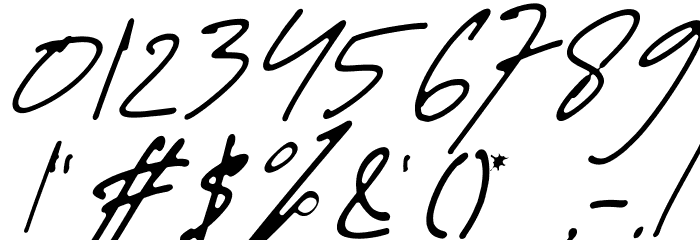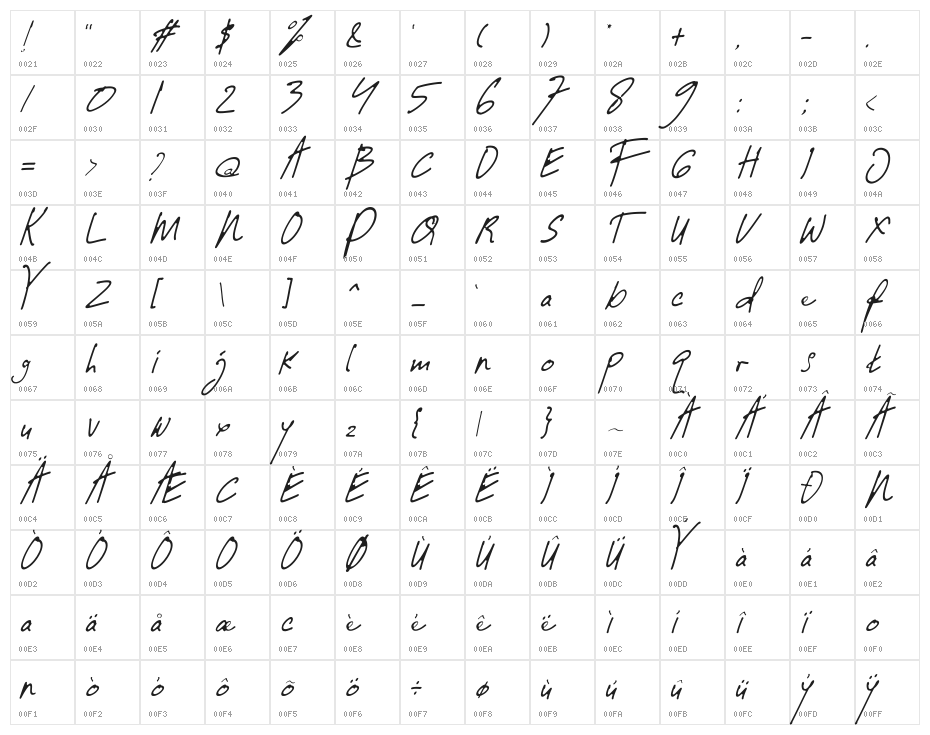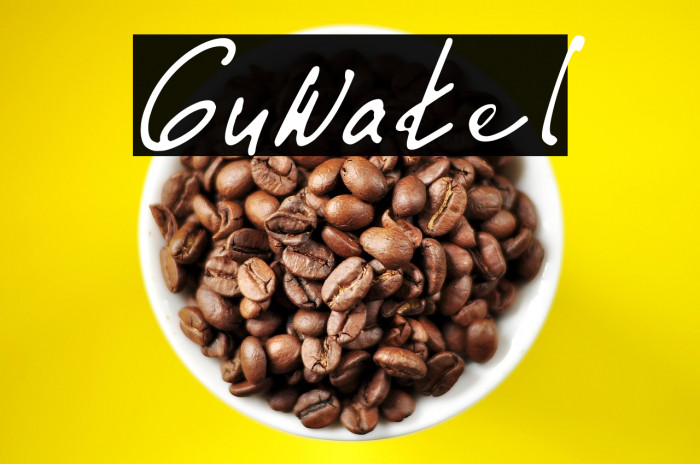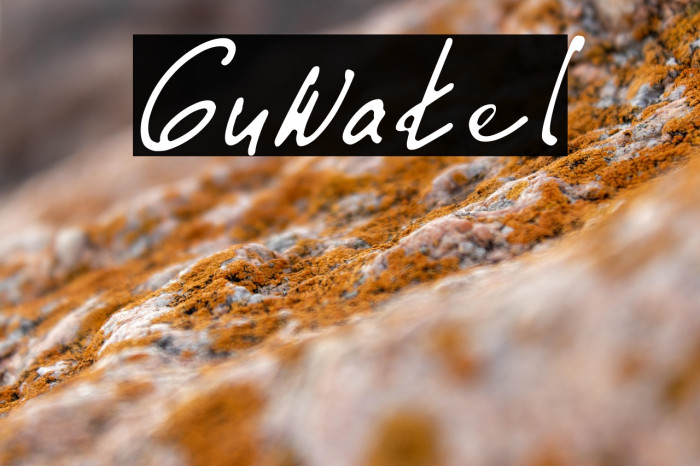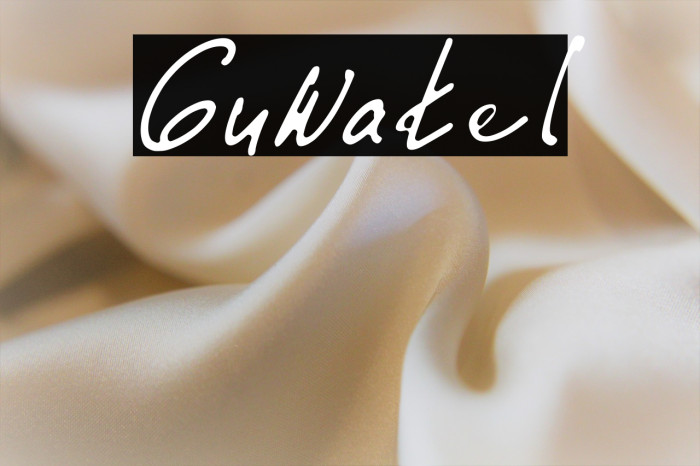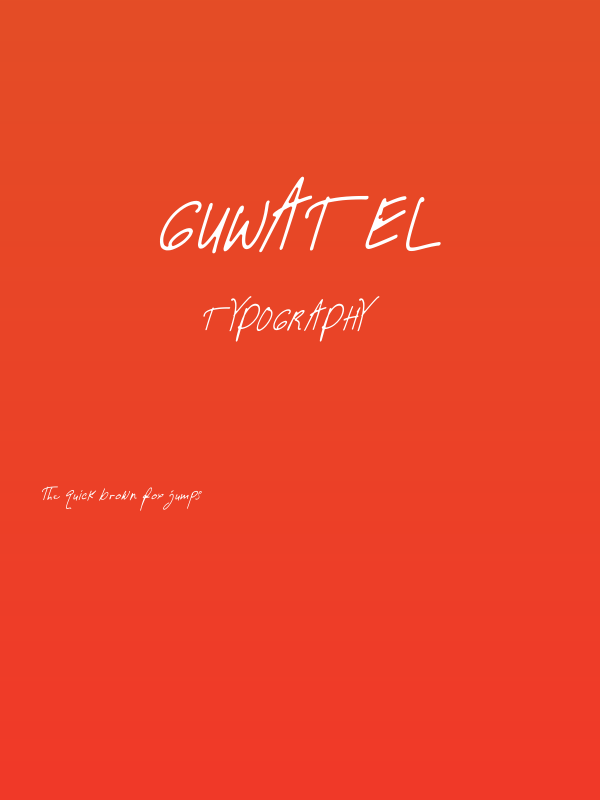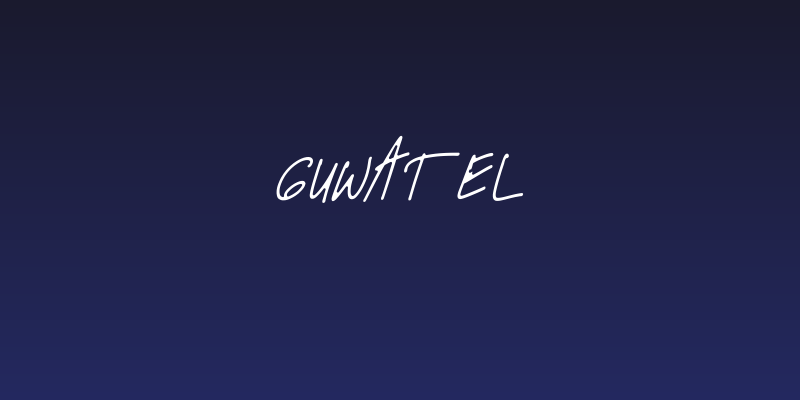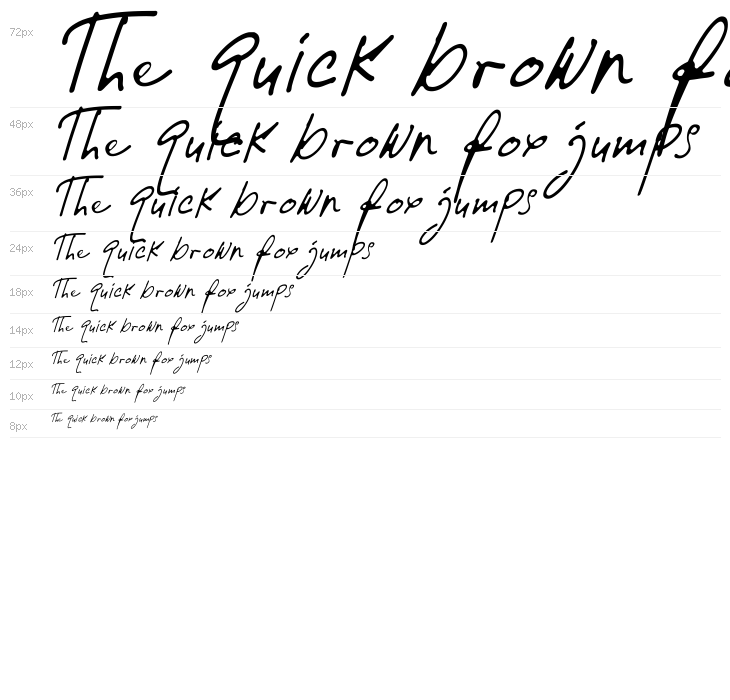
Guwatel Font
Guwatel Description
This font exudes a dynamic and expressive handwritten style, characterized by its fluid and slightly erratic strokes. The letters are crafted with a natural, free-flowing motion, giving it an authentic, personal touch. The uppercase letters maintain a consistent height, while the lowercase letters vary in size, adding to the casual and spontaneous feel. The numbers and special characters follow the same lively style, ensuring a cohesive look across all characters. The overall design is reminiscent of quick, artistic handwriting, making it ideal for projects that require a personal or informal tone.
| Overall Style | Casual, Artistic |
| Use Case | Logos, Invitations, Personal notes |
| Proposed Projects | Ideal for personal notes, creative projects, invitations, and branding that seeks an informal, artistic flair. |